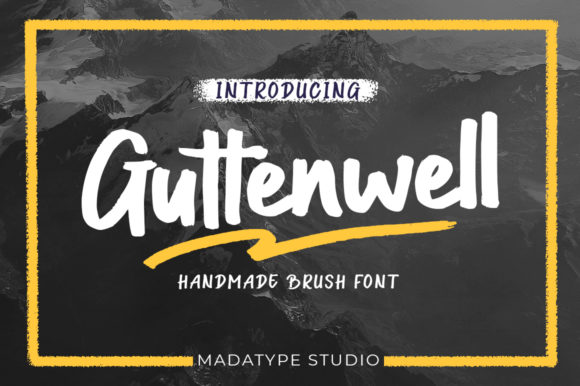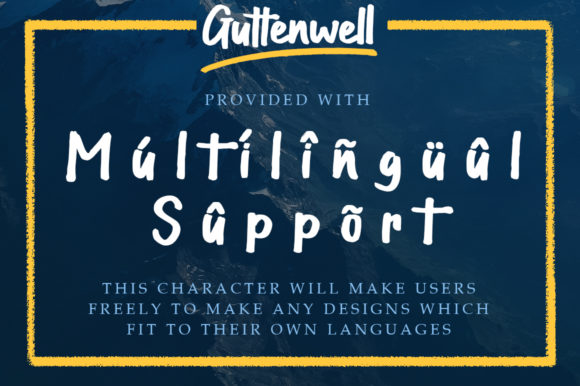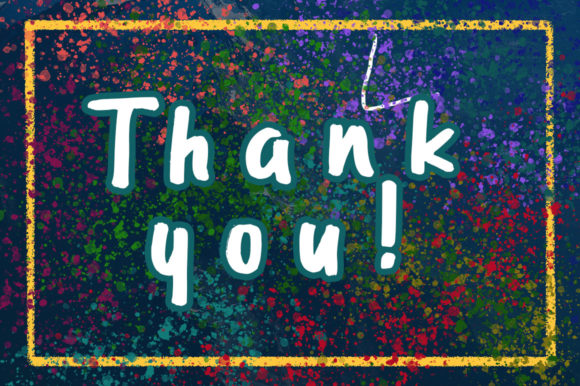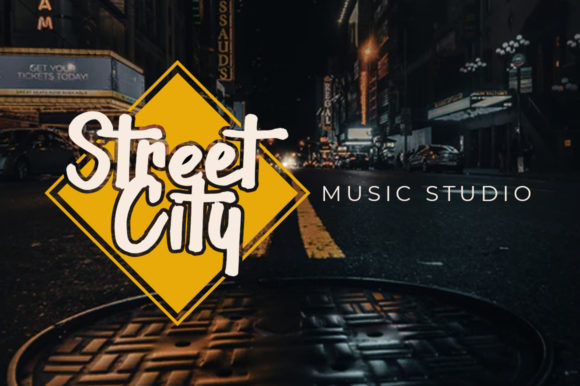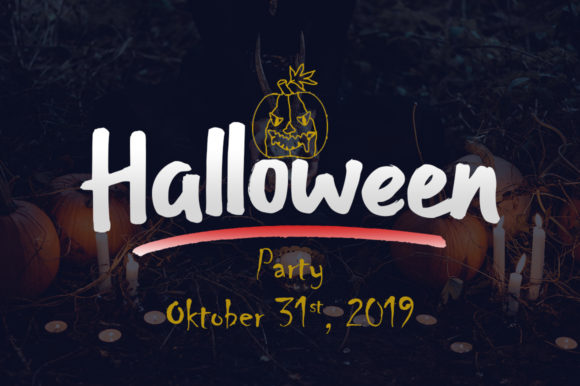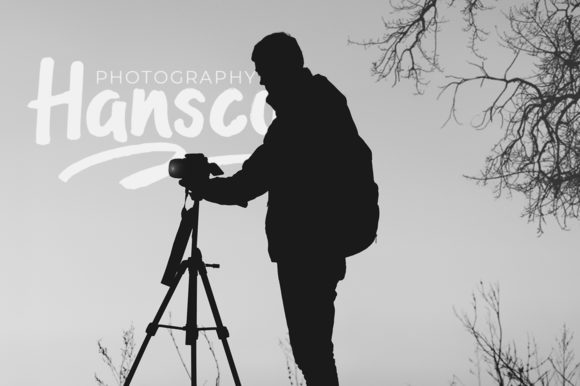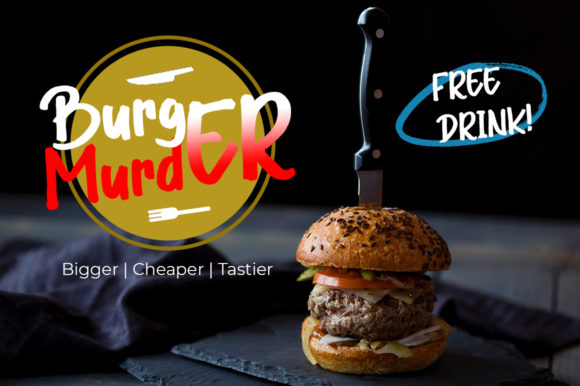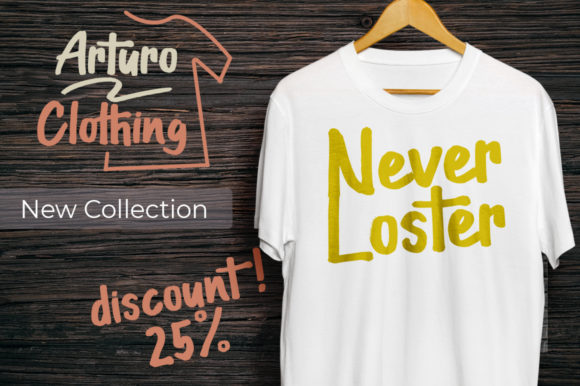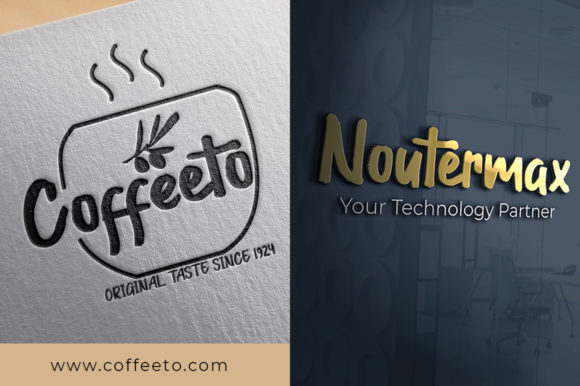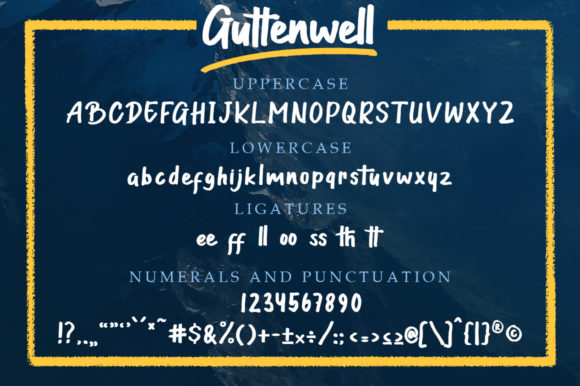
HomeScript FontsGuttenwell Font Script Fonts Guttenwell Font FacebookXPinterestWhatsApp Guttenwell Font Poster 2 Guttenwell Font Poster 3 Guttenwell Font Poster 4 Guttenwell Font Poster 5 Guttenwell Font Poster 6 Guttenwell Font Poster 7 Guttenwell Font Poster 8 Guttenwell Font Poster 9 Guttenwell Font Poster 10 Guttenwell Font Poster 11 About Guttenwell Font Guttenwell is an incredible script font that will add a bold feel to any design project! DOWNLOAD ON CREATIVE FABRICAThis font is sold and delivered by Creative Fabrica. Font Canyon may earn a commission if you buy through this link. People also explored famous Script Welcome Wedding Font Demons Gothic Font Sintiana Font Pocket Notebook Acrylic Paint Tubs Simple Font Sugar Candy Font Tabitha Valerie Font Balentia Font 315 0 TagsGuttenwell Font Previous articleDinattallie FontNext articleXinden Font LEAVE A REPLY Cancel reply Comment: Please enter your comment! Name:* Please enter your name here Email:* You have entered an incorrect email address! Please enter your email address here Website: Save my name, email, and website in this browser for the next time I comment. Personal Use Free White Rose Personal Use Free Read more about this font Over the Top Personal Use Free Read more about this font Valentine Chips Personal Use Free Read more about this font Bigstone Personal Use Free Read more about this font BLOG The 10 Best Handwriting Fonts to Add Personality to Your Designs 10 of the Best Handwriting Fonts for Adding Personality to Your Designs There will undoubtedly be no other better choice than handwriting fonts to give... Fonts That Capture the Spirit of New York City Where to Buy American Fonts Online in 2024 Free vs Paid Fonts: Why Investing in Premium Fonts Is Worth It